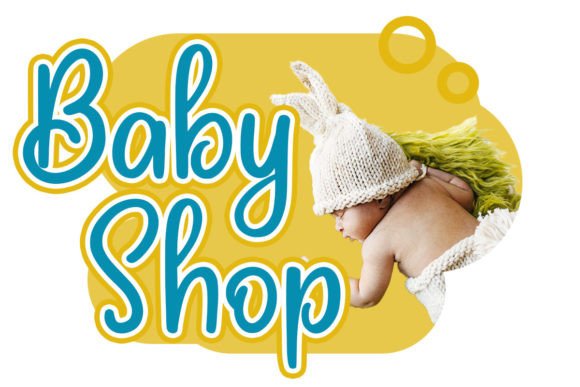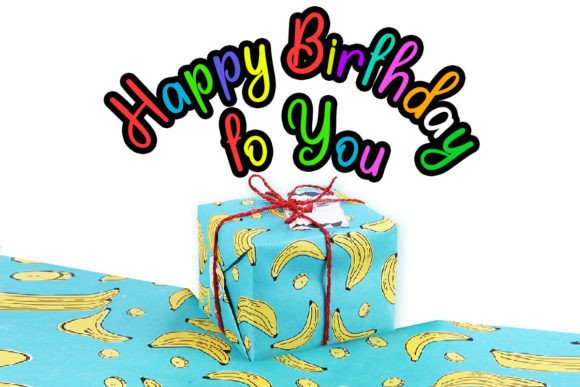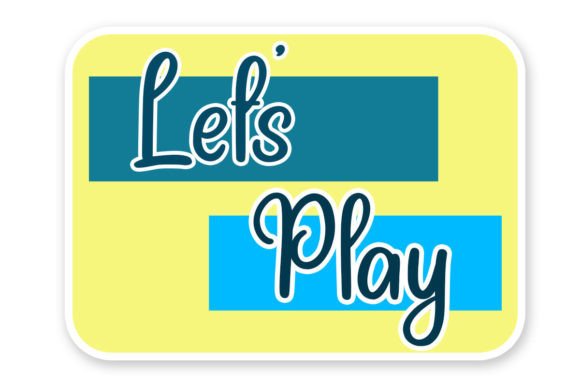
Introducing After Breakfast Font: The Perfect Addition to Your Typography Collection
Are you a designer, crafter, or educator looking for a unique and playful font to add to your collection? Look no further than the After Breakfast Font! This charming handwritten font is sure to bring a smile to your face with its cute and funny style, making it an excellent choice for a variety of projects.
What is After Breakfast Font?
After Breakfast Font is a versatile script font that boasts a wide range of applications. Its playful and whimsical design makes it perfect for children’s education materials, such as worksheets, activity sheets, and educational posters. Additionally, its romantic and elegant feel also makes it suitable for more mature projects, including greeting cards, invitations, and headlines.
Key Features of After Breakfast Font
- Handwritten style: The After Breakfast Font features a unique handwritten style that gives it a personal and friendly touch.
- Cute and funny: The font’s playful design makes it perfect for projects that require a lighthearted and humorous tone.
- Versatile: The font’s versatility makes it suitable for a wide range of applications, from children’s education to romantic and elegant projects.
- Easy to read: The font’s clear and legible design ensures that it is easy to read, even at smaller sizes.
Uses of After Breakfast Font
The After Breakfast Font is perfect for a variety of projects, including:
- Children’s education: The font’s playful design makes it perfect for educational materials, such as worksheets, activity sheets, and educational posters.
- Greeting cards: The font’s romantic and elegant feel makes it suitable for greeting cards, invitations, and other special occasions.
- Headlines: The font’s bold and playful design makes it perfect for headlines, titles, and other attention-grabbing applications.
- Signage: The font’s clear and legible design makes it suitable for signage, such as menus, labels, and directional signs.
Benefits of Using After Breakfast Font
Using the After Breakfast Font in your projects offers several benefits, including:
- Unique and playful design: The font’s unique design sets it apart from more traditional fonts, adding a touch of personality to your projects.
- Improved readability: The font’s clear and legible design ensures that your text is easy to read, even at smaller sizes.
- Increased creativity: The font’s versatility and playfulness can help inspire creativity and add a fresh perspective to your projects.
Tips for Using After Breakfast Font
To get the most out of the After Breakfast Font, follow these tips:
- Use it sparingly: The font’s playful design can be overwhelming if used excessively. Use it sparingly to add emphasis and create visual interest.
- Pair it with other fonts: The font’s versatility makes it easy to pair with other fonts. Experiment with different combinations to find the perfect look for your project.
- Experiment with colors: The font’s playful design lends itself well to bright and bold colors. Experiment with different colors to add visual interest to your project.
The After Breakfast Font is a unique and versatile font that is perfect for designers, crafters, and educators looking to add a touch of personality to their projects. Its playful and whimsical design makes it suitable for a wide range of applications, from children’s education to romantic and elegant projects. With its clear and legible design, improved readability, and increased creativity, the After Breakfast Font is sure to become a valuable addition to your typography collection.